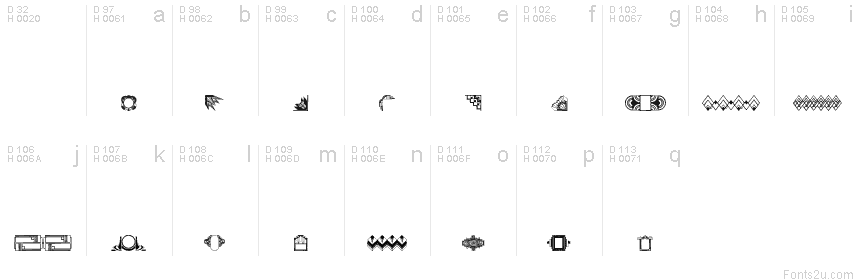
ArtDeco Motif by Lime is a free Art Deco dingbat font built from angular geometric ornaments. The forms combine square blocks, clipped corners, and stair-step runs. Their hard edges and right angles recall tiled borders and machine-age trim.
Its clearest role is in invitations and posters, where the motifs can frame text or build corner ornaments with a period look. The same tiled geometry can mark packaging, editorial borders, and event graphics as a period accent.
ArtDeco Motif